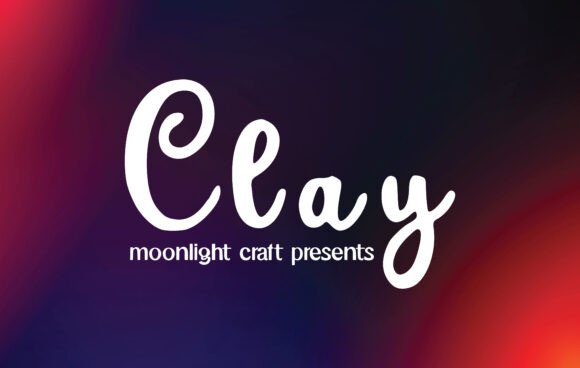
Introducing Clay Font: Elevate Your Creative Ideas with a Lovely Handwritten Font
Are you looking for a font that can take your creative ideas to the next level? Look no further than Clay Font, a beautiful handwritten font that is perfect for creating eye-catching logos, branding, and quotes. In this article, we’ll explore the features and benefits of Clay Font, and show you how it can help you elevate your design game.
What is Clay Font?
Clay Font is a lovely and beautiful handwritten font that is designed to help you create stunning visual content. Its unique and elegant style makes it perfect for a wide range of design projects, from logos and branding to quotes and social media graphics.
One of the standout features of Clay Font is its versatility. It can be used for both personal and commercial projects, and is suitable for a wide range of industries and applications. Whether you’re a designer, artist, or simply someone who loves to create, Clay Font is a great choice for anyone looking to add a touch of elegance and sophistication to their work.
Key Features of Clay Font
So what makes Clay Font so special? Here are just a few of its key features:
- Beautiful Handwritten Style: Clay Font has a unique and elegant handwritten style that is perfect for creating eye-catching logos, branding, and quotes.
- Versatile: Clay Font can be used for both personal and commercial projects, and is suitable for a wide range of industries and applications.
- Easily Readable: Despite its elegant style, Clay Font is still easily readable, making it perfect for use in body text as well as headings and titles.
Benefits of Using Clay Font
So why should you choose Clay Font for your next design project? Here are just a few of the benefits of using this lovely handwritten font:
- Instantly Elevate Your Design: With Clay Font, you can instantly elevate your design and add a touch of elegance and sophistication.
- Stand Out from the Crowd: Clay Font is a unique and distinctive font that will help you stand out from the crowd and grab the attention of your audience.
- Perfect for Logos and Branding: Clay Font is perfect for creating eye-catching logos and branding that will help you establish a strong visual identity.
Tips for Getting the Most out of Clay Font
Here are a few tips for getting the most out of Clay Font:
- Experiment with Different Sizes and Colors: Don’t be afraid to experiment with different sizes and colors to find the perfect combination for your design.
- Use it for Headings and Titles: Clay Font is perfect for use in headings and titles, but you can also use it for body text if you want to create a more elegant and sophisticated look.
- Pair it with Other Fonts: Clay Font can be paired with other fonts to create a unique and interesting look. Try pairing it with a sans-serif font for a bold and modern look.
In conclusion, Clay Font is a lovely and beautiful handwritten font that is perfect for creating eye-catching logos, branding, and quotes. Its unique and elegant style makes it a great choice for anyone looking to add a touch of sophistication and elegance to their design. With its versatility, readability, and compatibility with a wide range of devices, Clay Font is a great choice for any design project.
- What is Clay Font? Clay Font is a lovely and beautiful handwritten font that is perfect for creating eye-catching logos, branding, and quotes.